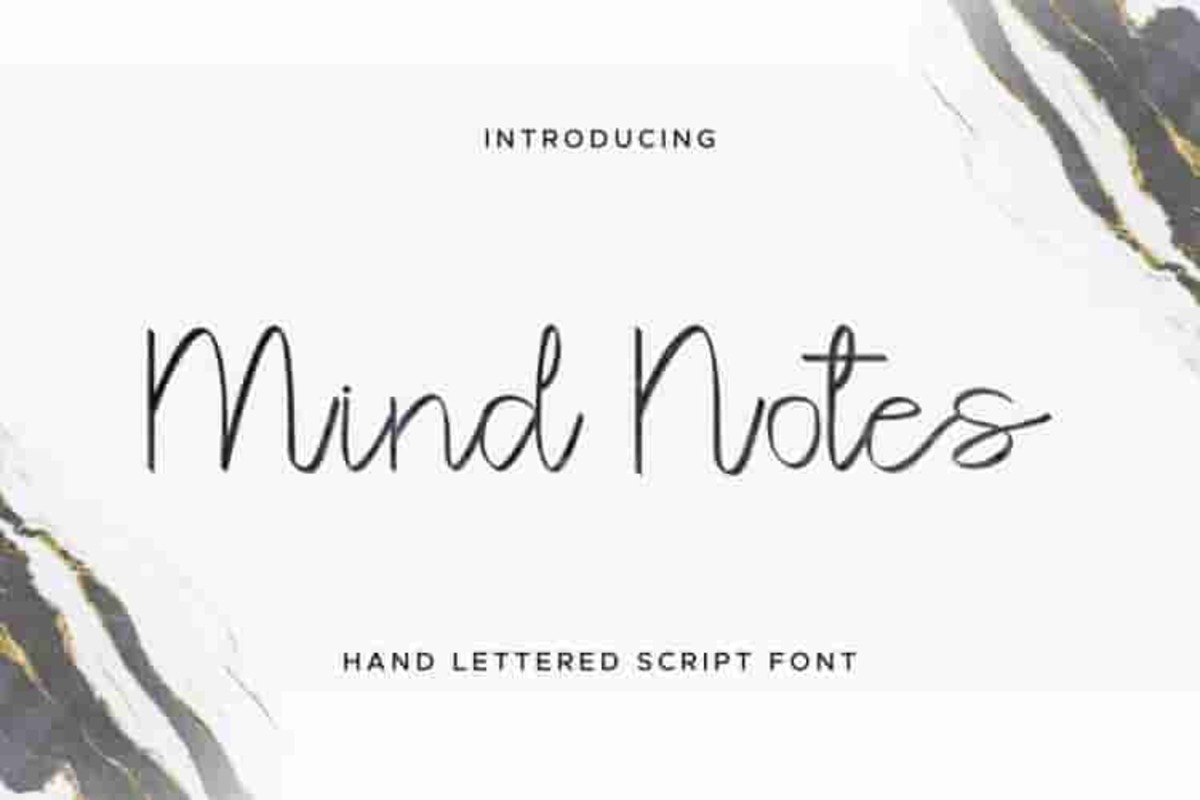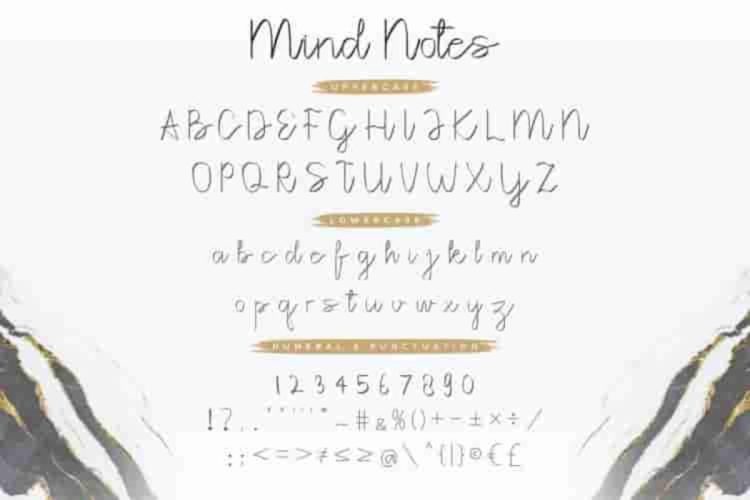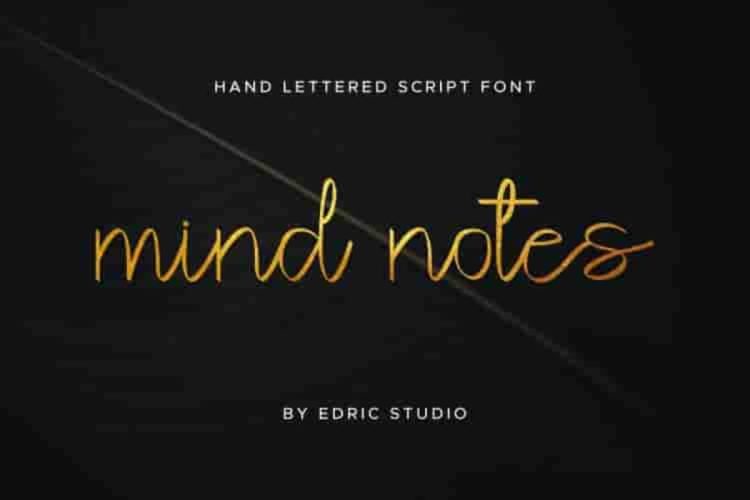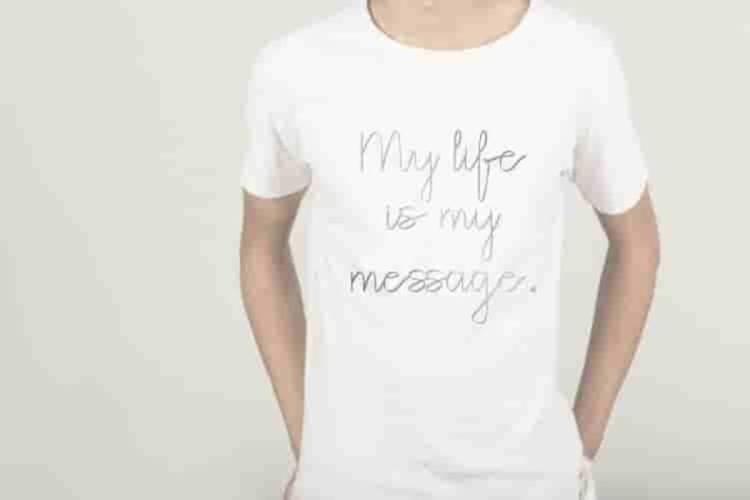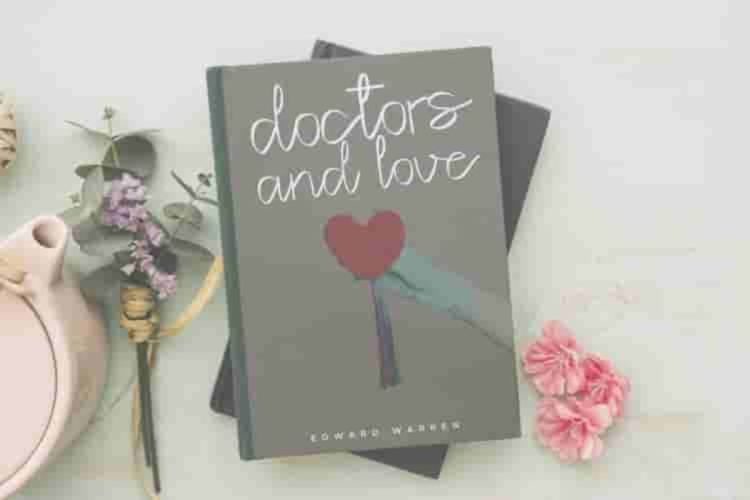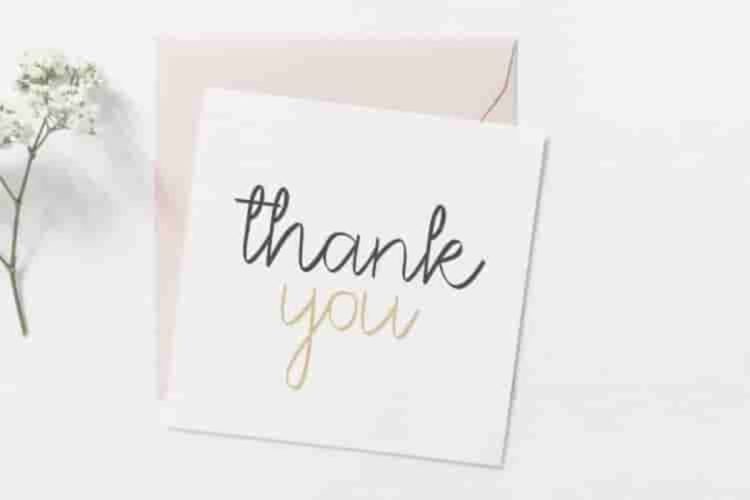
Mind Notes Calligraphy Script Font
It is us again : EDRIC Studio, Please welcome our latest font : Mind Notes Calligraphy Script Font.
This is a calligraphy font, handcrafted from our Studio here in Garut and Bandung, Indonesia. The artists/designers of this beautiful tyeface is Saila and Suci.
Mind Notes Calligraphy Script Font is an exclusive hand lettering script typeface with brush style. This font has a stunning characters set, perfectly managed with well spaced and kerning. The theme style of this font will elegant,  vintage, stylish, sophisticated and natural brush pen handwriting style.
Mind Notes Calligraphy Script Font will be great for any projects including : branding, logo, stationery, business card, signage, flyer, brochure etc. Almost all industries will be match for this typeface: wedding, events, real estate, architect, law firm, florist, gardening, makeup artist, travel, hotel, musician etc.